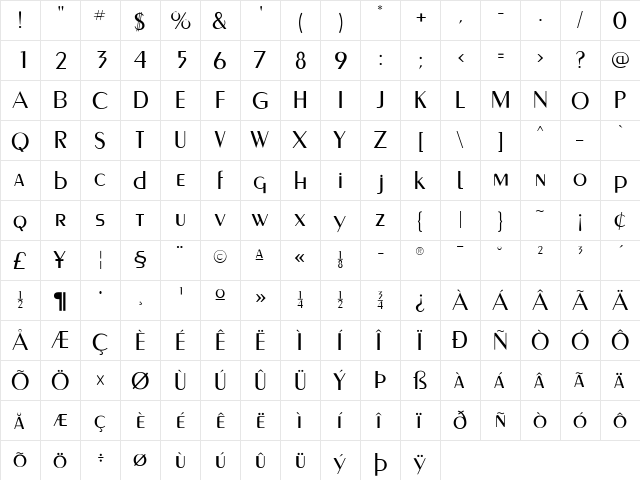
MontereyFLF Regular
Design Context for MontereyFLF Typeface
MontereyFLF offers clean, dependable letterforms without strong stylistic allegiance, making it a practical choice for designers who need flexibility.